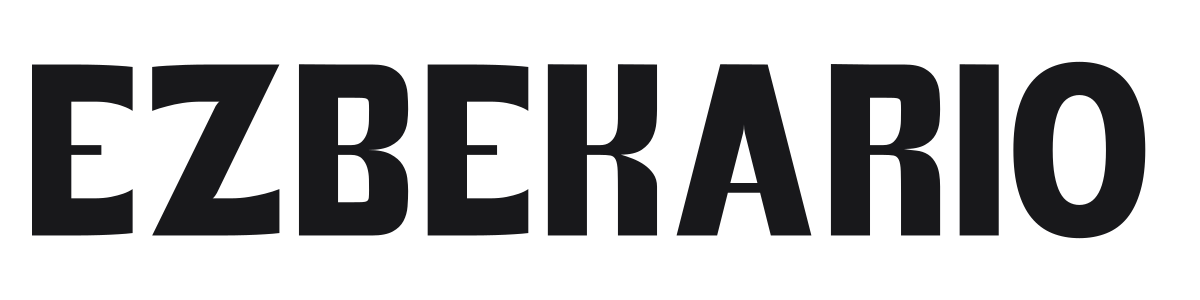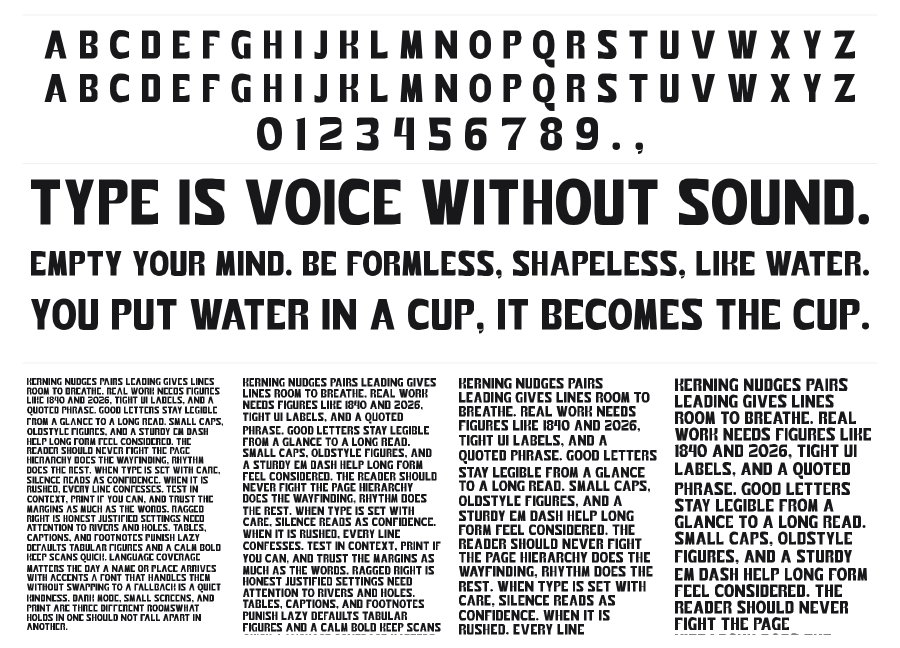
Ez-Bekario
Ez-BekarioLicense is a heavy condensed grotesque with a raw, industrial edge. Subtle irregularities in the strokes give it a handmade quality that separates it from polished geometric sans-serifs. Strong at large sizes for posters, logos, and headlines where impact matters.